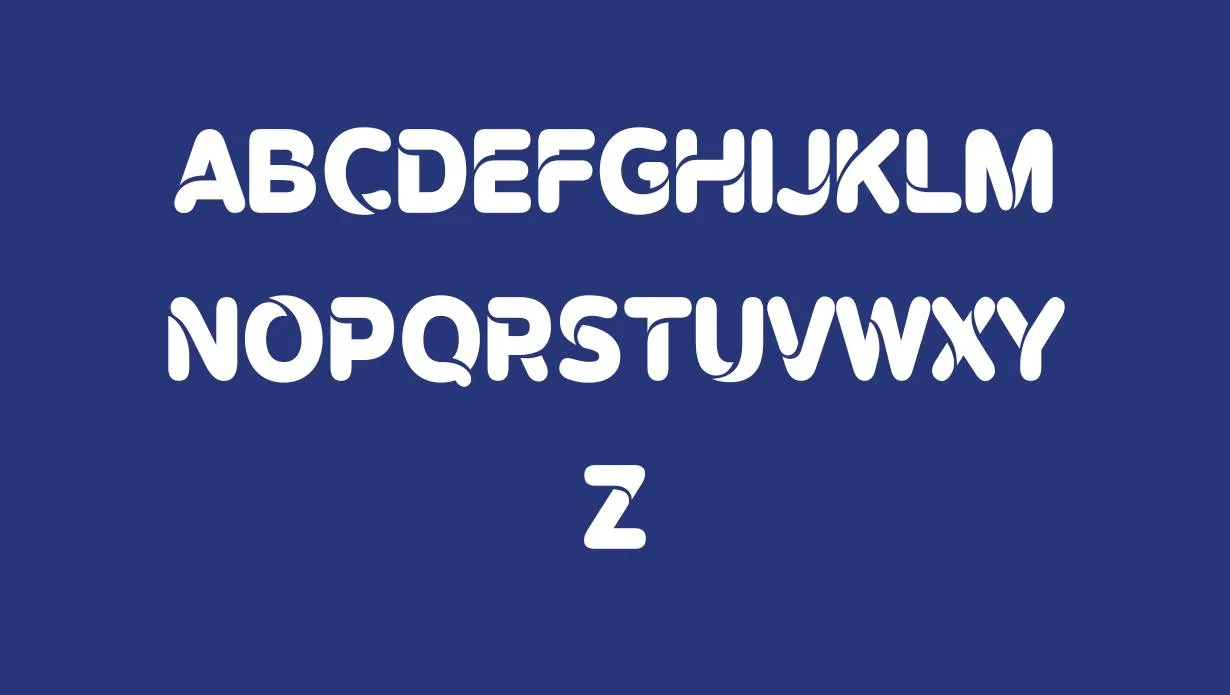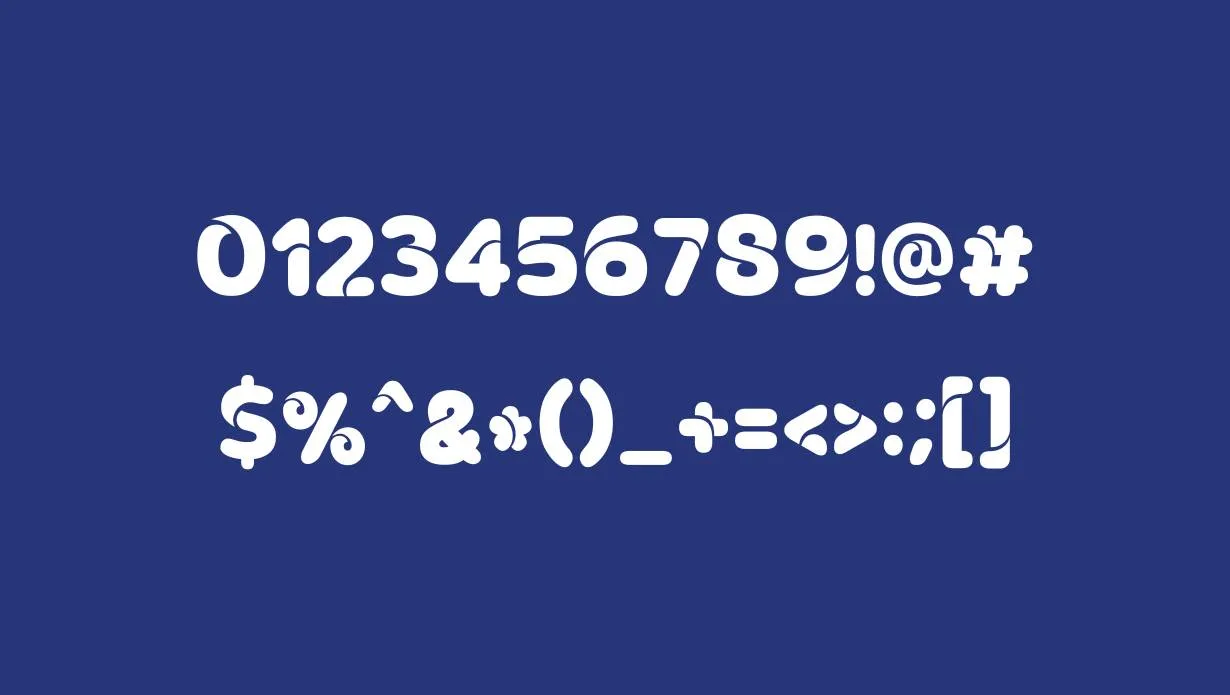
Omegle font was designed by 177Studio by focusing on the trendy and bold appearance of characters. This typeface has unique characters that are helpful to boost your design projects. You can utilize this stunning font for banner design, poster design, flyers, and logo design projects.
You can utilize this superb typeface in combination with various fonts but to attract your project you should pair it with rondana font.